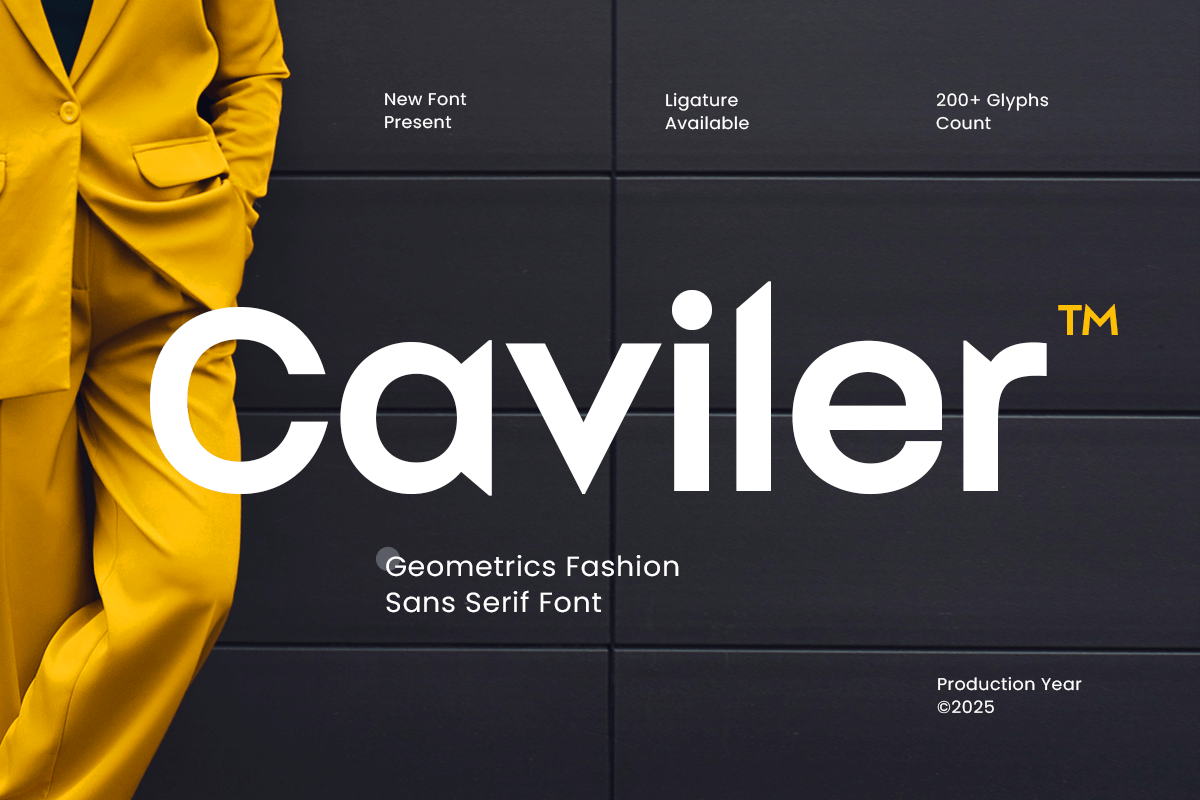
Caviler - Geometric Sans Serif Font
Caviler – Geometric Corporate Sans Serif Font
Caviler is a clean and professional sans-serif font built on precise geometric foundations. Designed for corporate branding, editorial layouts, and modern digital design, Caviler combines simplicity, strength, and elegance to create a timeless visual identity.
With its well-balanced letterforms and minimal aesthetic, Caviler enhances any business or creative project — from brand identities and presentations to websites and advertising materials. Its geometric precision ensures readability and consistency, giving every design a polished and professional impression.
Caviler – Geometric Corporate Sans Serif Font Features:
\* Modern geometric sans-serif with professional aesthetics
\* Ideal for corporate branding, presentations, and digital design
\* Includes uppercase, lowercase, numerals, and punctuation
\* Smooth kerning and OpenType features for flexibility
\* Perfect balance between minimalism, clarity, and elegance
Empower your visual identity with Caviler – the geometric corporate sans-serif font that defines modern professionalism.